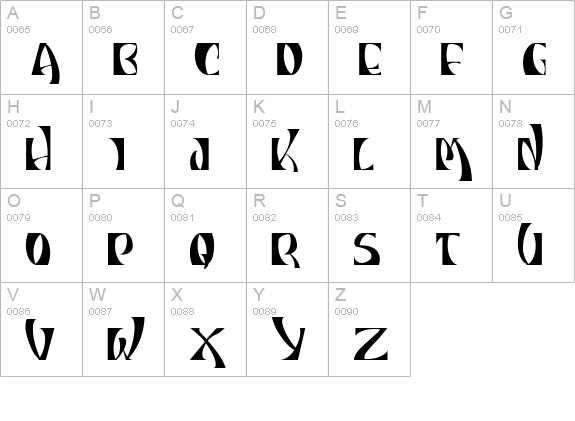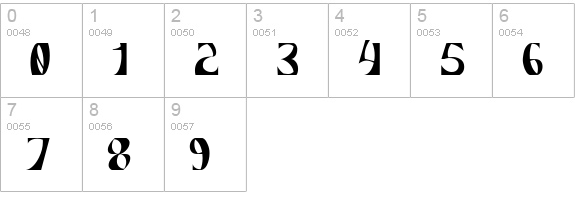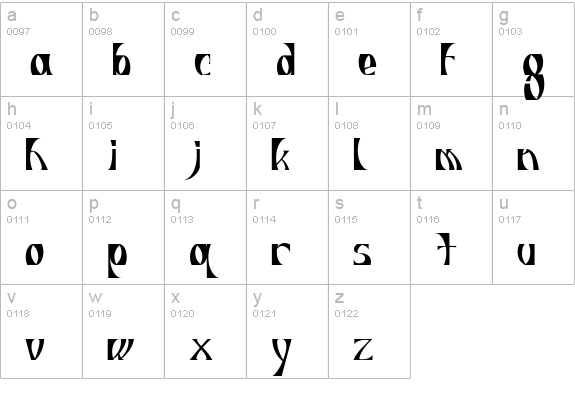
INDIOSBRAVOS TITLING Font Details
INDIOSBRAVOS TITLING is a captivating font that exudes strength and boldness. With its sharp edges and distinct shapes, this font is perfect for creating eye-catching titles and headings. Whether you are designing a poster, logo, or website, INDIOSBRAVOS TITLING will instantly elevate your design with its unique and powerful presence. This font is not only visually striking but also versatile in its applications. It can be used for both modern and traditional designs, adding a touch of sophistication and style to any project. Its clean lines and impeccable letterforms make it easy to read, ensuring that your message is conveyed effectively to your audience. One of the best features of INDIOSBRAVOS TITLING is that it is free to use. Yes, you read that right! This amazing font is freely available to download at FontsMarket.com. Now you can access this remarkable typeface without any cost, making it an invaluable addition to your design toolkit. Whether you are a professional graphic designer or an aspiring creative, INDIOSBRAVOS TITLING is a must-have font that will take your designs to new heights. Its bold and commanding presence will make a lasting impression and ensure that your work stands out from the crowd. So why wait? Download INDIOSBRAVOS TITLING today from FontsMarket.com and start creating visually stunning designs that demand attention. Let this font become your secret weapon in the world of design, and watch as your projects come to life with its captivating charm.